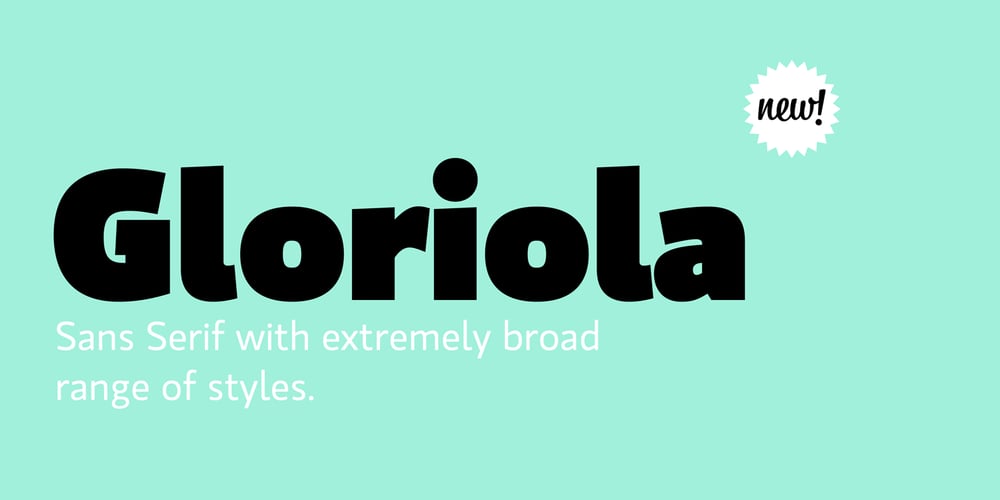
Gloriola Font Family was designed by Tomáš Brousil and published by Suitcase Type Foundry. Gloriola contains 14 styles and family package options. If you really feel that there’s nothing new happening in the sans-serif scene – meet Gloriola. A combination of frugal, unobtrusive uppercase letters with distinctive ascenders, a slightly compressed appearance and an atypical shape, form a sufficiently original contribution to current efforts to bring sans-serifs up to date.